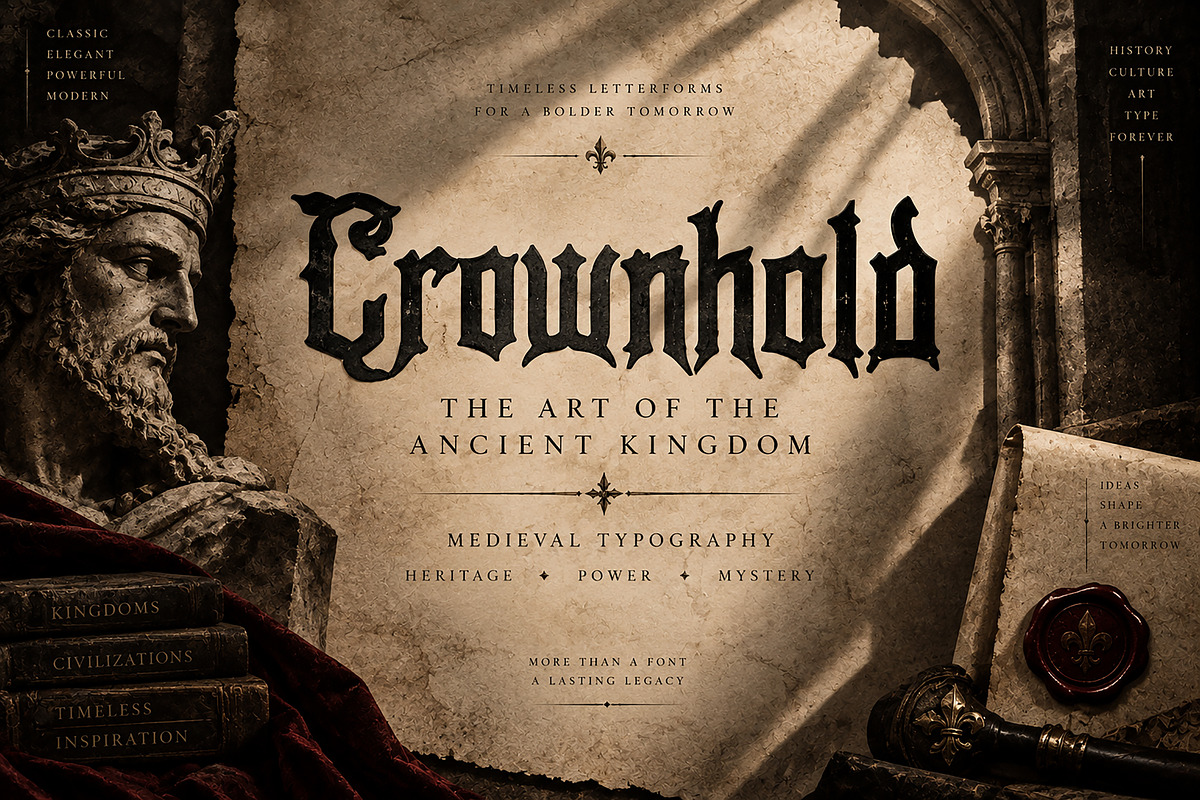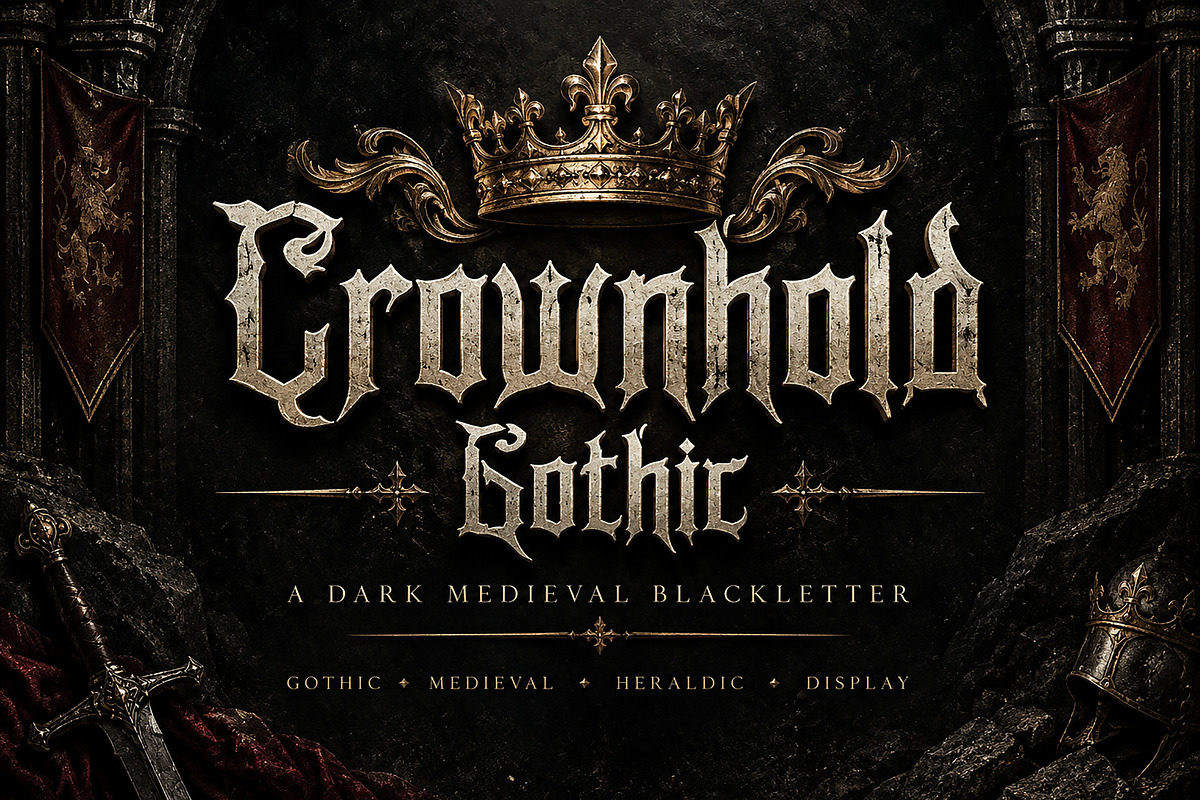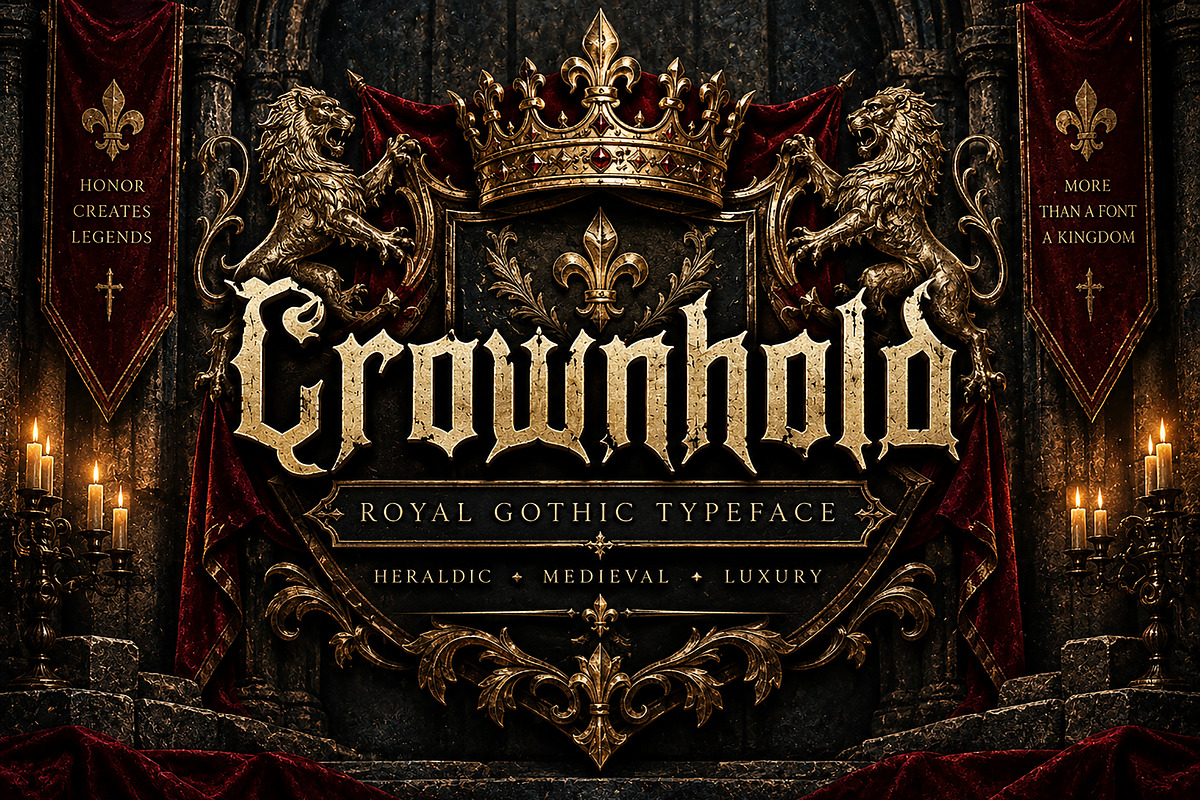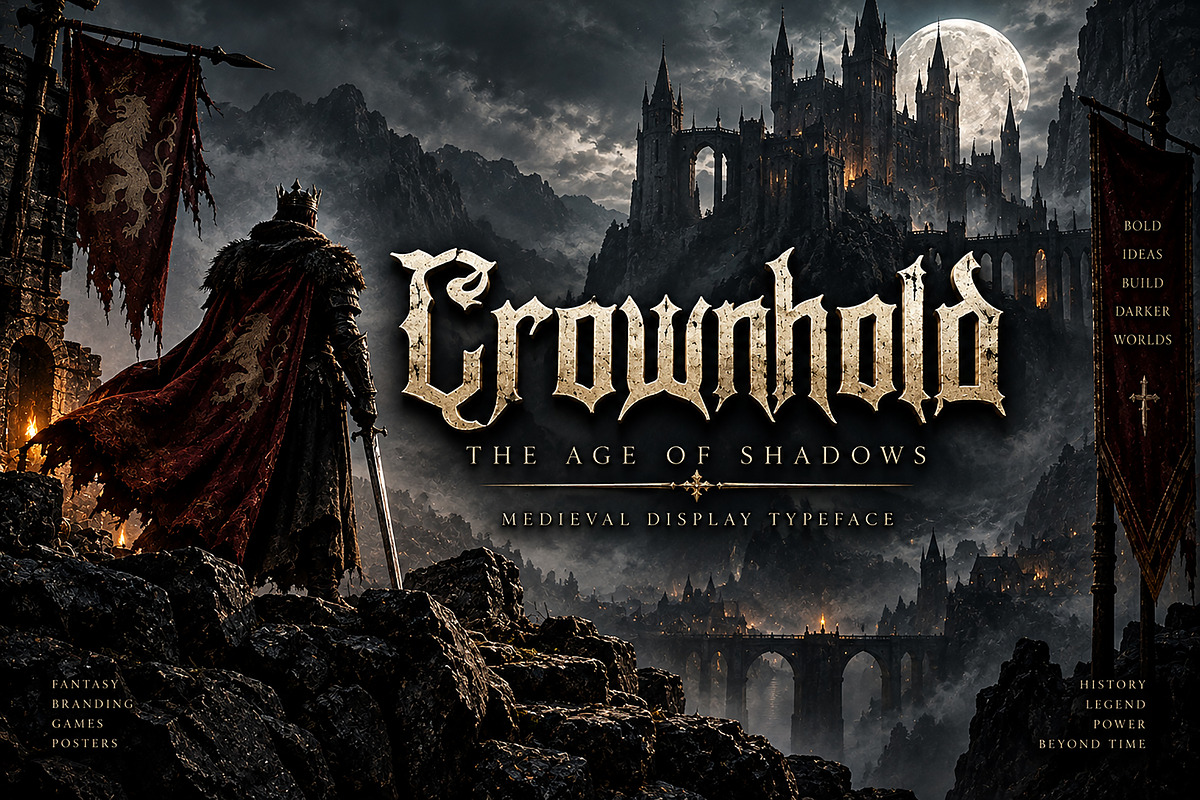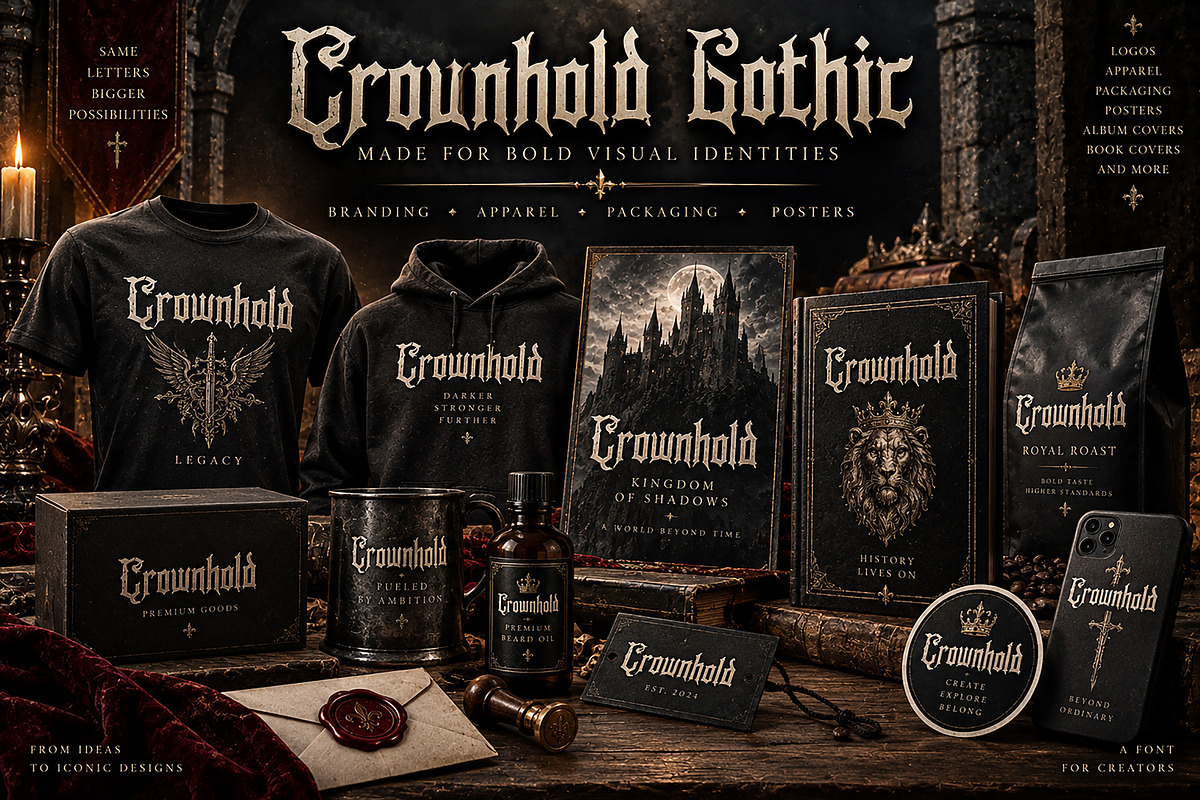
Crownhold Gothic
Crownhold Gothic – Medieval Blackletter Font
Crownhold Gothic is a bold medieval blackletter typeface crafted for powerful, dramatic, and timeless visual identities. Perfect for branding, logos, posters, apparel, book covers, album artwork, fantasy designs, and more.
CROWNHOLD GOTHIC – MEDIEVAL BLACKLETTER FONT
Step into a world of medieval power, mystery, and timeless character with Crownhold Gothic, a bold Blackletter typeface designed to create striking visual impact.
With its sharp Gothic forms, dramatic letter structure, and classic medieval character, Crownhold Gothic is perfect for projects that need a strong, dark, historic, and distinctive typographic presence.
Whether you're creating a powerful brand identity, fantasy artwork, apparel graphics, posters, book covers, album artwork, or game-inspired designs, Crownhold Gothic brings an unmistakable medieval atmosphere to your work.
Style: Gothic / Blackletter / Medieval / Display
Crownhold Gothic is designed as a display typeface, making it especially effective for headlines, titles, logos, branding, and other prominent design elements where strong visual character is essential.
Bring your designs to life with the dark elegance and commanding presence of Crownhold Gothic.